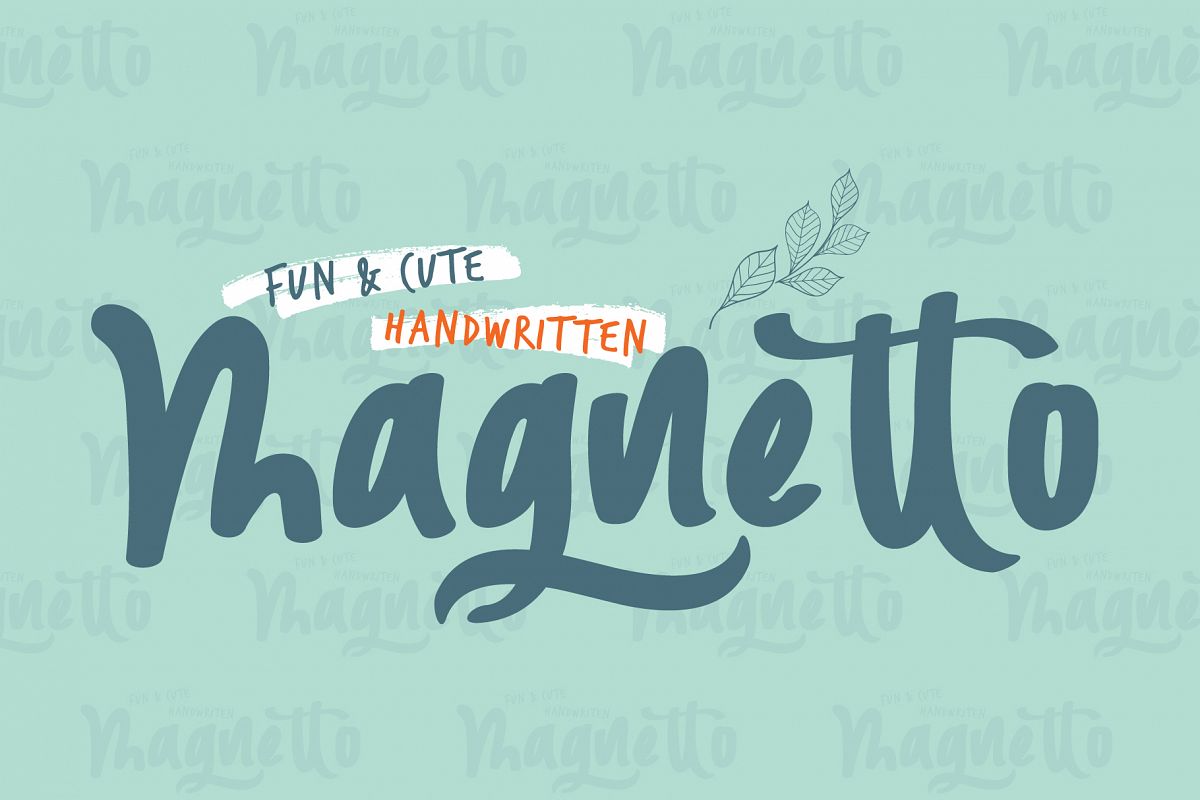
Magnetto
Magnetto Font is fun and cute handwritten typeface. Its characters have been drawn by hand to give them a fun and cute look. Magnetto Font  is perfect for children text, fun text, cute text, love text, design baby products, children's fashion and creative design other children.
Magnetto Font Features :
• Numerals & Punctuations
• Accents (Multilingual characters)
• ss01, ss02, Ligature